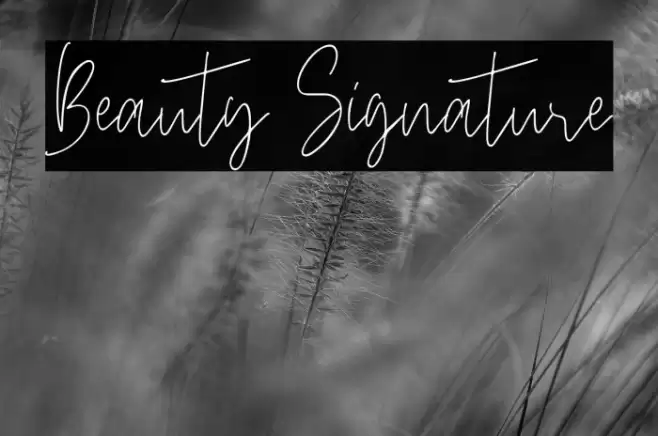
Beauty Signature Font
Beauty Signature Description
This font exudes a casual and artistic flair, characterized by its flowing, handwritten style. The letters are elegantly elongated with a slight slant, giving them a dynamic and fluid appearance. The strokes are thin and consistent, providing a delicate and airy feel. The uppercase letters are distinctively tall and narrow, while the lowercase letters maintain a cohesive, cursive flow. This font captures the essence of personal handwriting, making it ideal for projects that require a personal touch or a sense of authenticity. Its unique style is both modern and timeless, suitable for a variety of creative applications.
A flowing, handwritten style with elongated, slanted letters and thin strokes from Regular fonts.
- Proposed Projects: Ideal for wedding invitations, personal branding, greeting cards, and artistic projects.